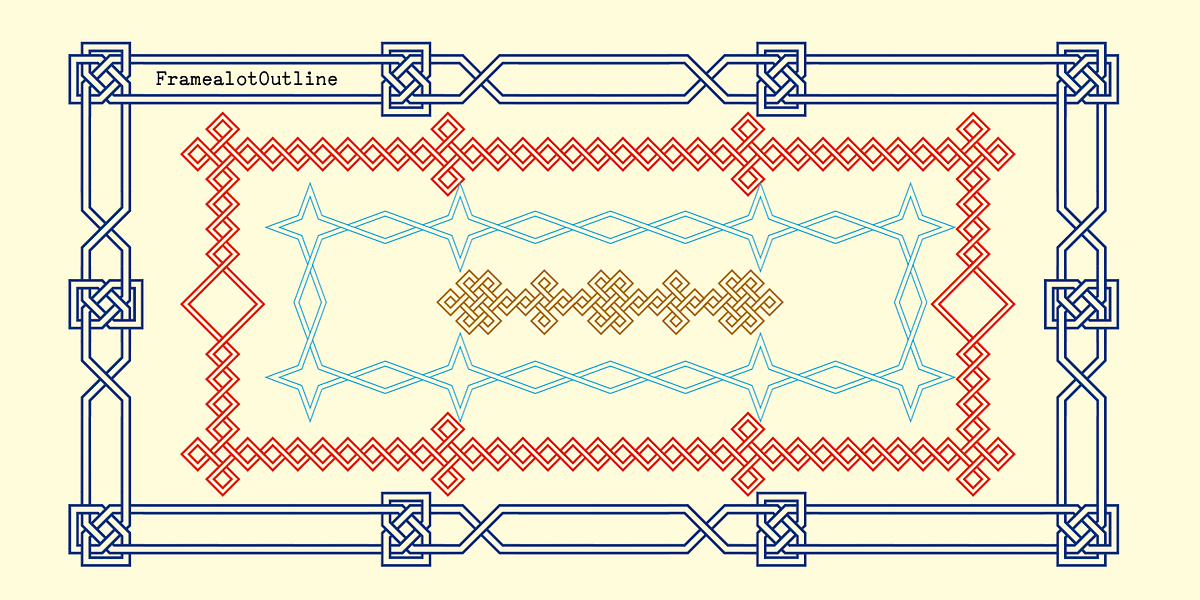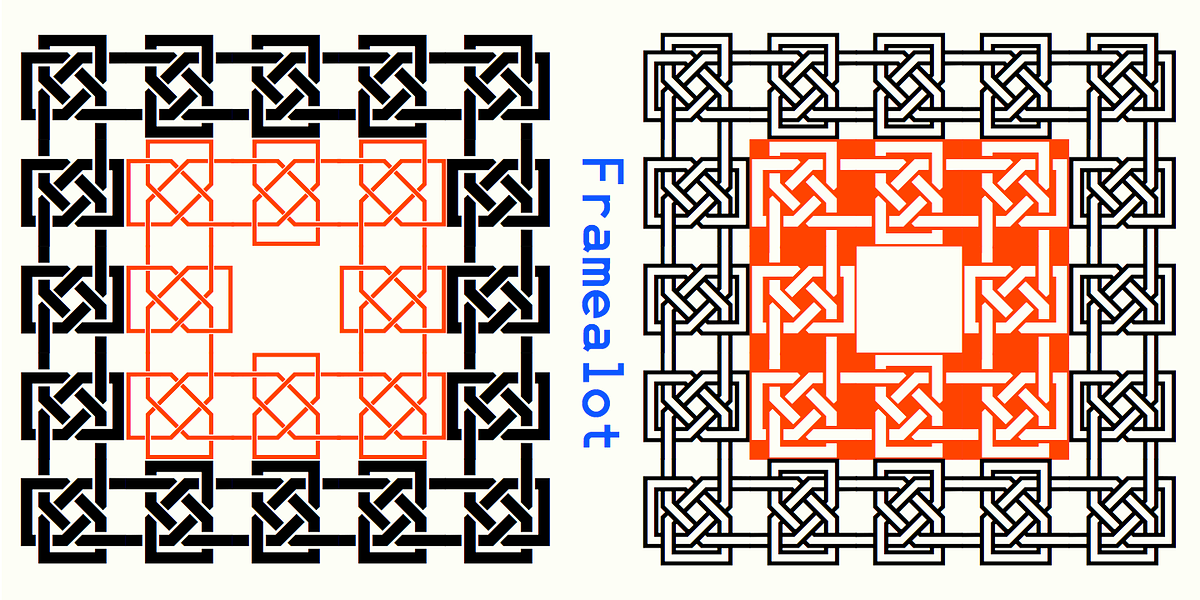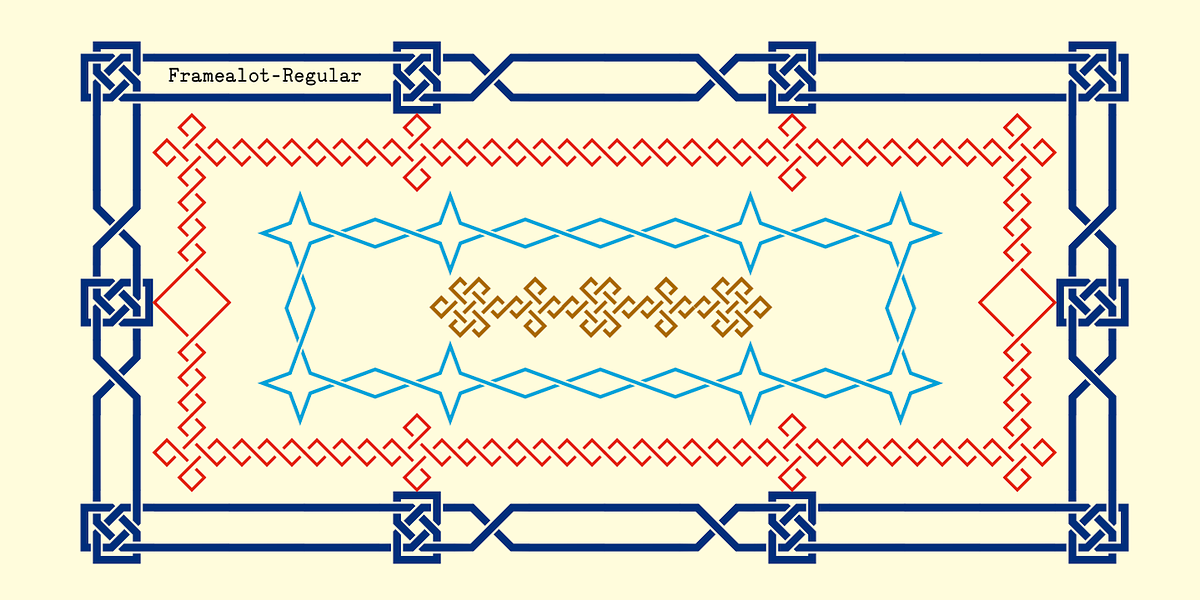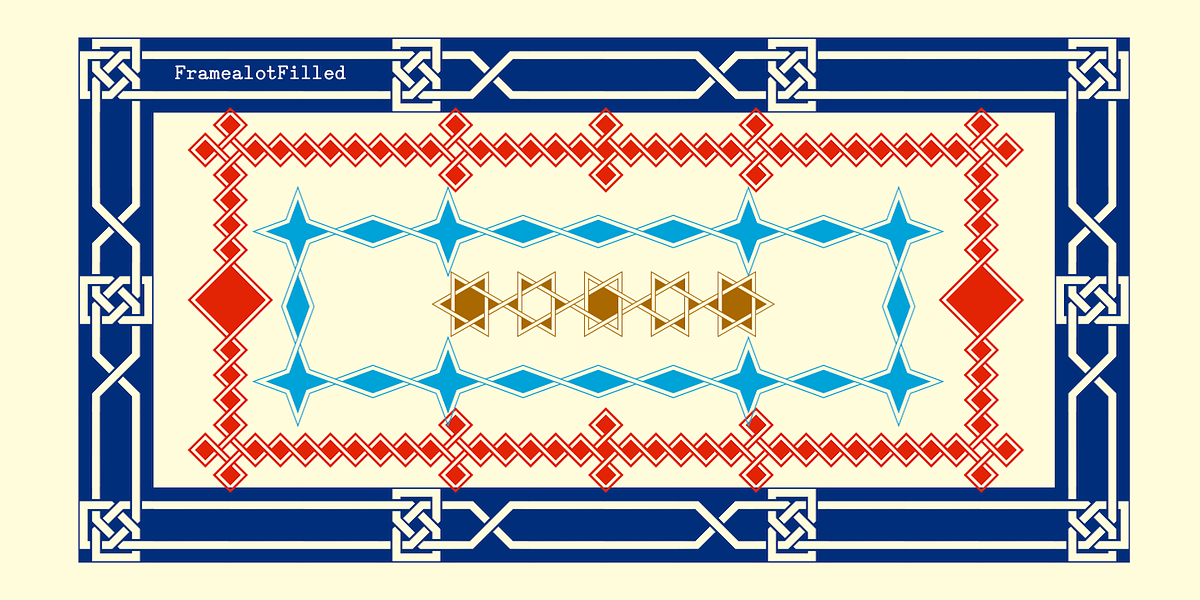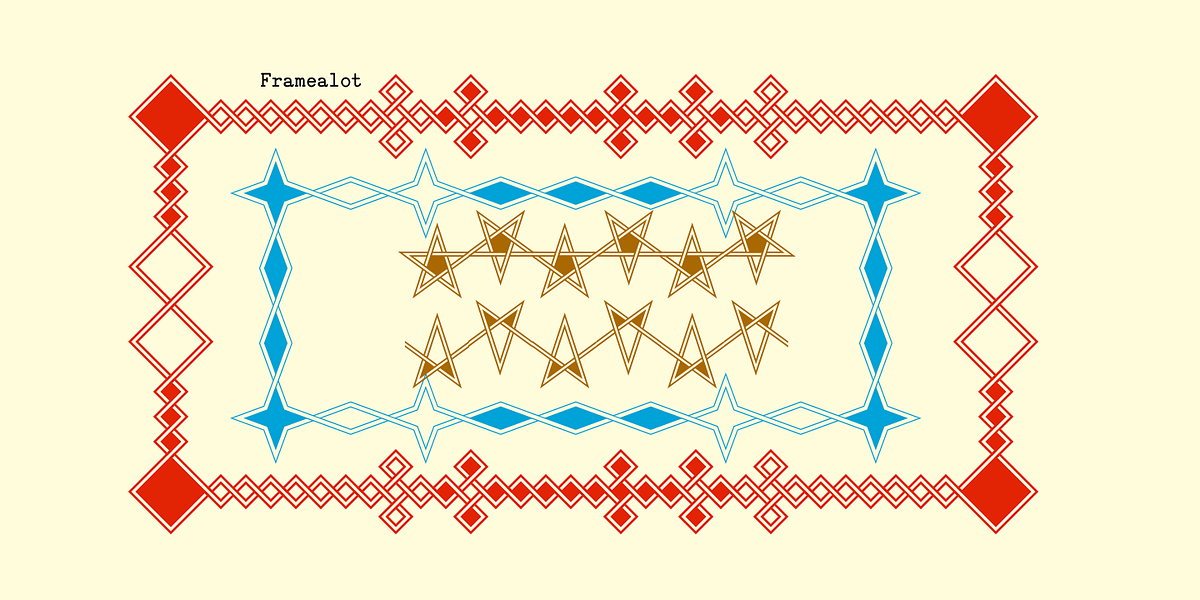
Framealot
Framealot is a dingbat font designed specifically for creating geometric borders and frames. It offers various sets of elements located on different keyboard keys, allowing users to mix and match components to construct unique designs. The font includes filled and outlined versions, with the filled version inverting patterns or removing white interior sections in the outline style.